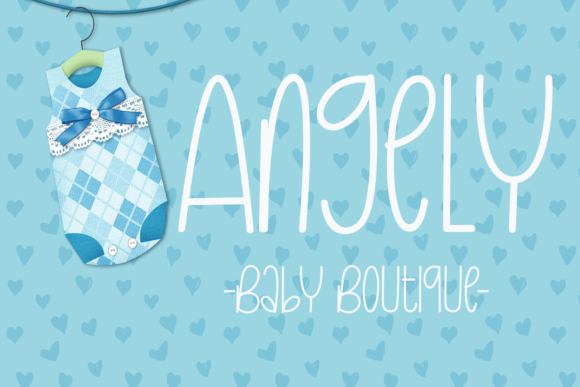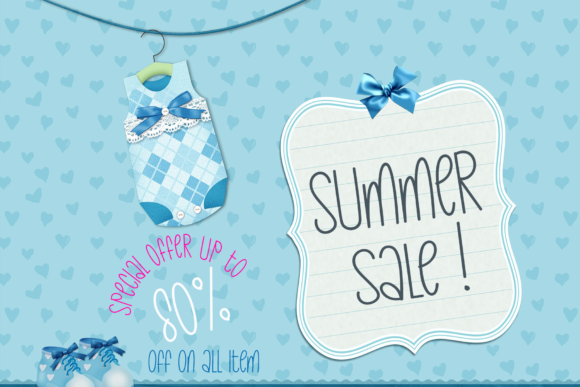
Simple Handwriting Font
db-ku.com - Script & Handwritten -- Simple Handwriting is a slim and simple handwritten font created for packaging products, invitation cards, flyers, mockups, event posters, and anything else that requires high-quality vibes. It has a beautiful and balanced character, that fits well with the large design pool.